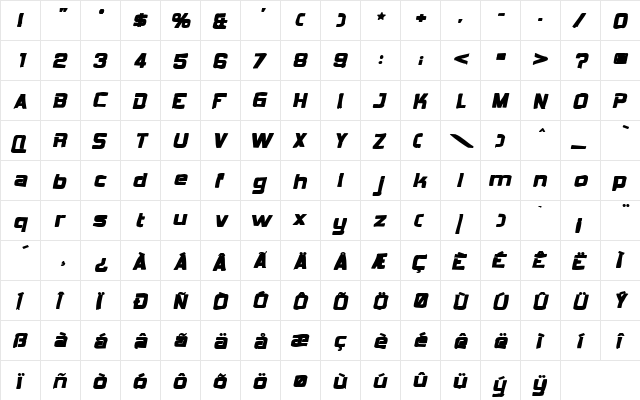
Hemi Head Ink Regular Font Preview
Hemi Head Ink Regular
Design Context for Hemi Head Ink Typeface
Hemi Head Ink is a composed and adaptable typeface that performs quietly and consistently across a wide range of design contexts.